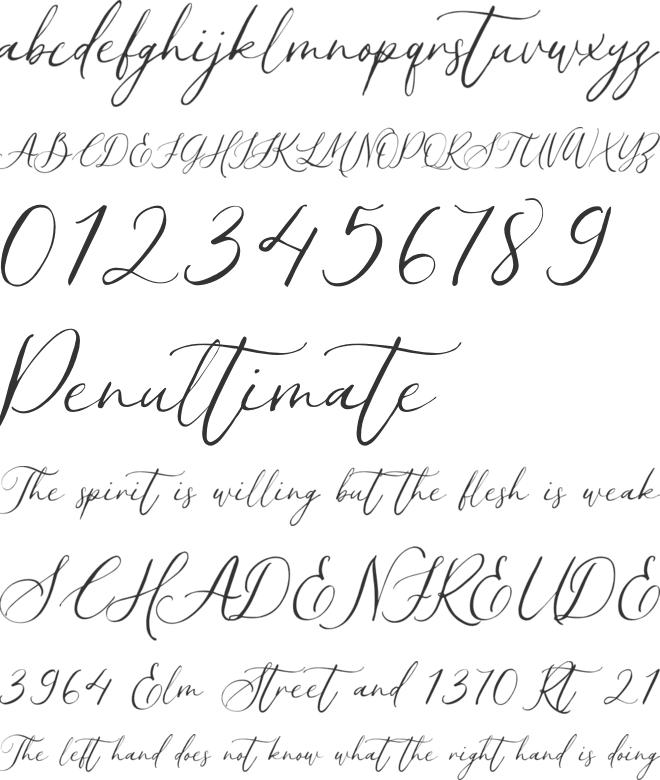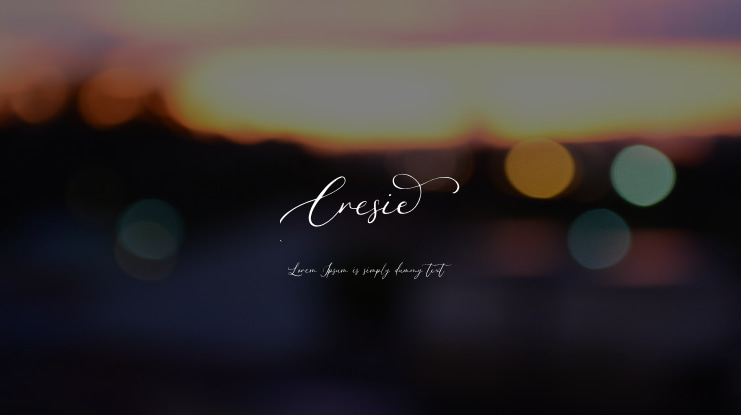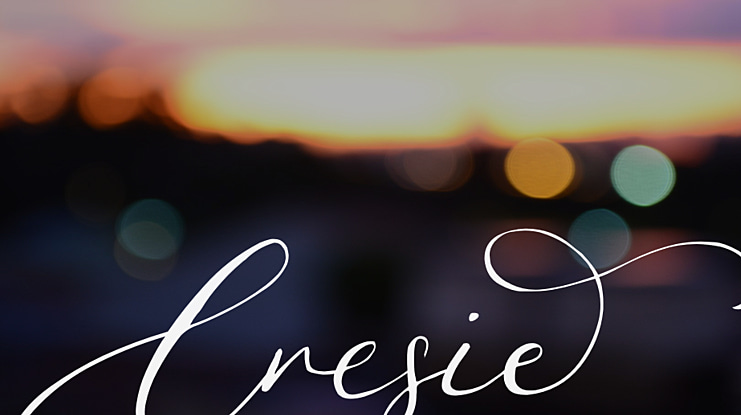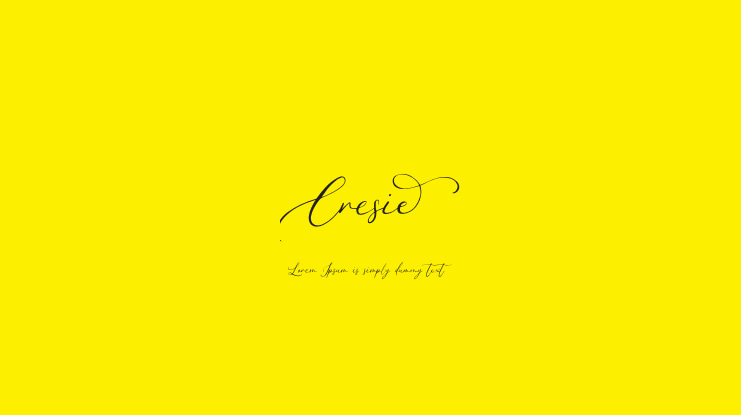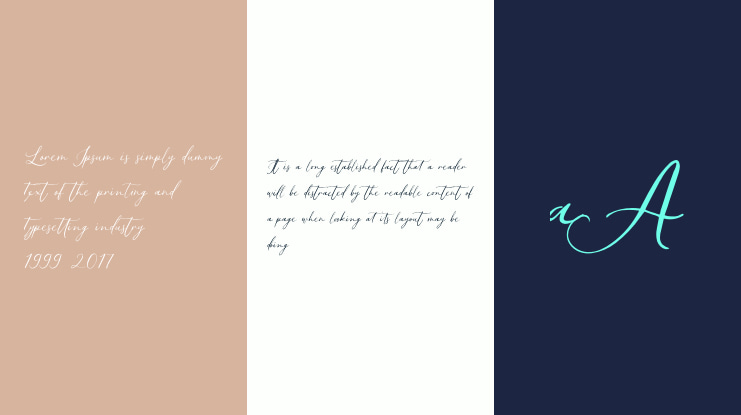
Cresie Font
Cresie is a lovely and timeless handwritten font. It is the best choice for creating eye catching logos, branding and quotes. Every letter has a unique and beautiful touch, which will make your design come alive! This font is PUA encoded which means you can access all of the glyphs and swashes with ease!